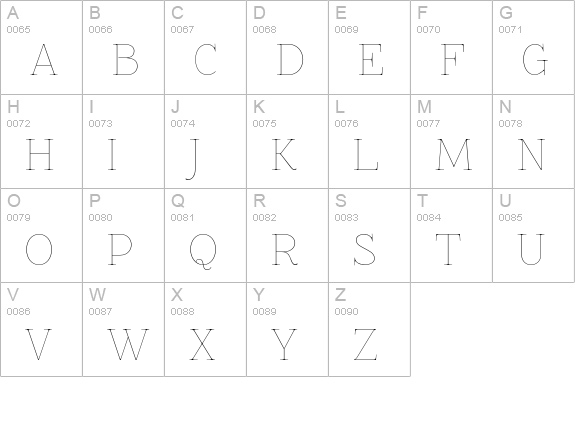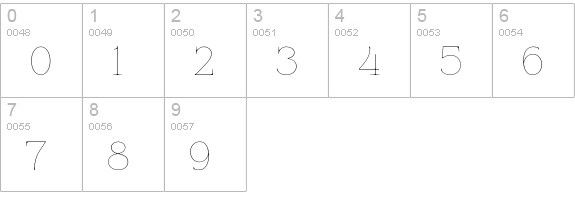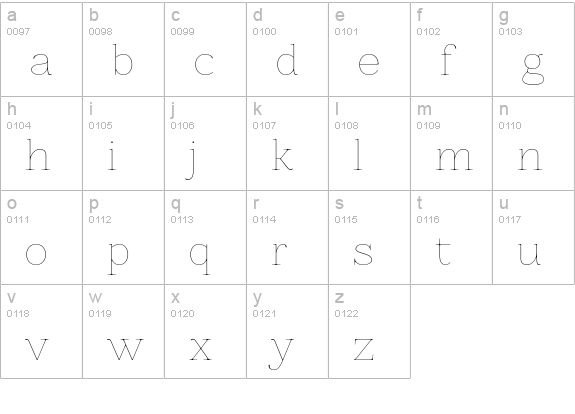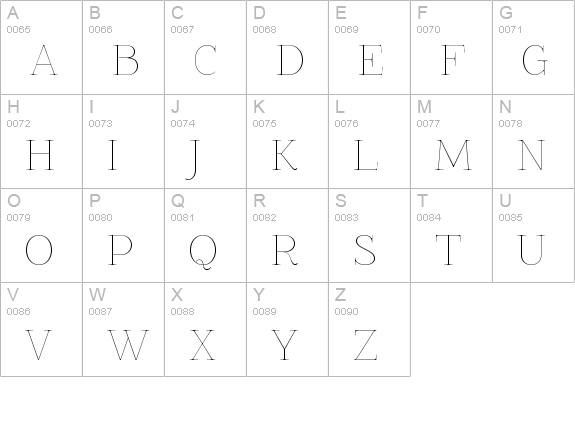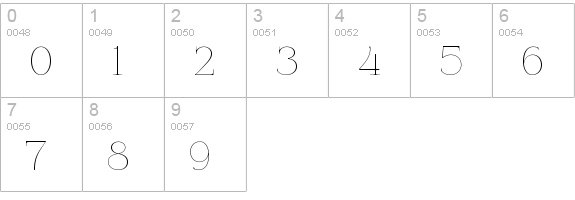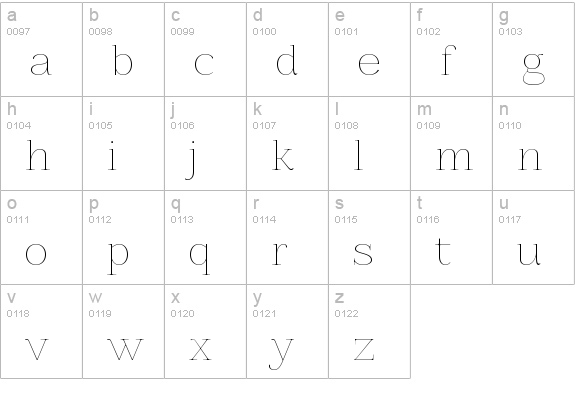
Znikomit Font Details
Znikomit font is a stunning typeface that exudes elegance and sophistication. Its unique design and intricate details make it perfect for any design project that requires a touch of class. The font's sharp, clean lines combined with its bold and eye-catching curves create a visually captivating effect that is sure to leave a lasting impression. What sets Znikomit font apart is not just its exceptional aesthetics but also its versatility. Whether you are designing a logo, creating a poster, or composing a headline, this font will effortlessly enhance your work and elevate it to new heights. Its timeless appeal ensures that it will remain relevant and stylish for years to come. One of the best things about Znikomit font is that it is completely free. You read that right - this incredible font is freely available to download at FontsMarket.com. This means that you can add this masterpiece to your font collection without spending a single penny. It’s a fantastic opportunity to enhance your design projects without breaking the bank. Furthermore, Znikomit font is incredibly easy to use. Its well-crafted glyphs and consistent letterforms make it a breeze to read and work with. Whether you are a seasoned designer or just starting out, this font will feel intuitive and effortless to incorporate into your projects. Don't miss out on the chance to elevate your designs with Znikomit font. Download it for free at FontsMarket.com and unlock a world of possibilities. Let this font be the secret weapon in your creative arsenal, as it will undoubtedly make your work stand out from the crowd. Embrace the elegance and sophistication that Znikomit font brings, and watch your design projects come to life with style and flair.